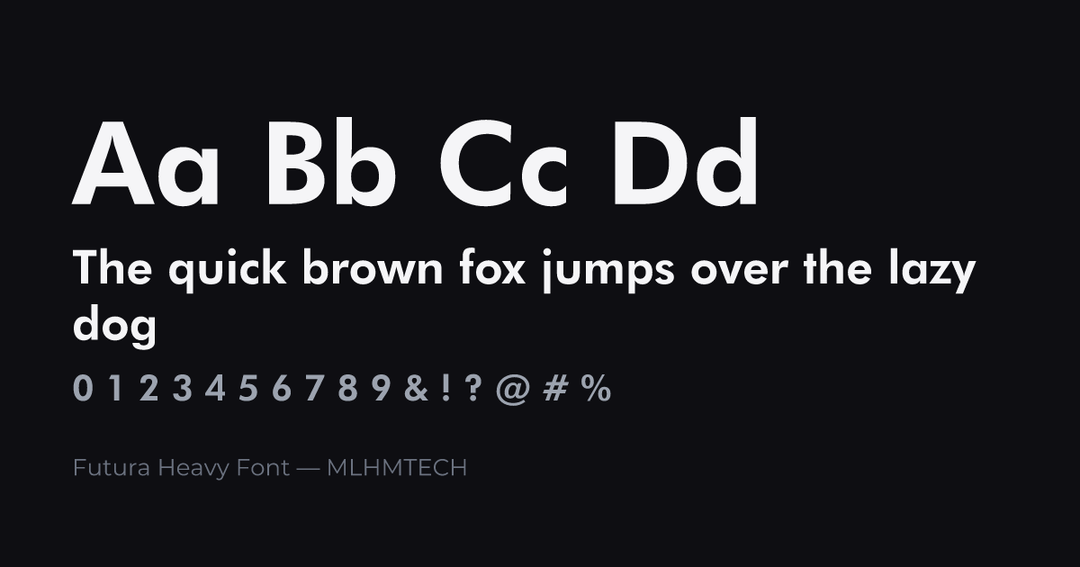
Futura Heavy Font
Futura Heavy is a bold, geometric sans-serif font ideal for impactful headlines and modern branding. This classic typeface adds a clean, confident look to any project.
Futura Heavy is a weight of the iconic Futura typeface, designed by Paul Renner in 1927. Its geometric shapes and even stroke widths give it a timeless, modern feel. This heavy weight is particularly suited for display purposes, such as headlines, posters, and logos, where a strong visual impact is needed.\n\nThe font's clean lines and excellent legibility make it a versatile choice for both print and digital media. Whether you're working on a corporate identity, advertising campaign, or personal creative project, Futura Heavy provides a professional and stylish appearance. It pairs well with a variety of serif and sans-serif fonts, offering flexibility in your design compositions.\n\nThis file is a TrueType font (TTF), ensuring compatibility across Windows, macOS, and most design software. Simply install the font on your system to use it in applications like Adobe Photoshop, Illustrator, InDesign, and many others.